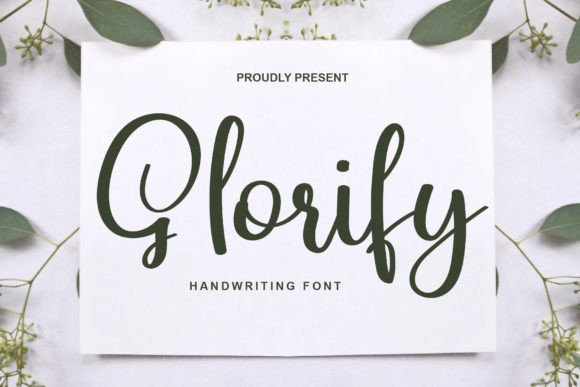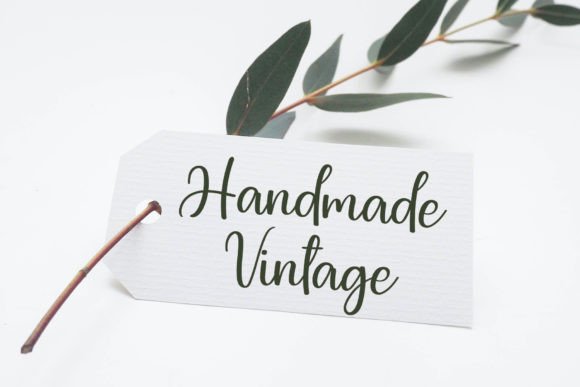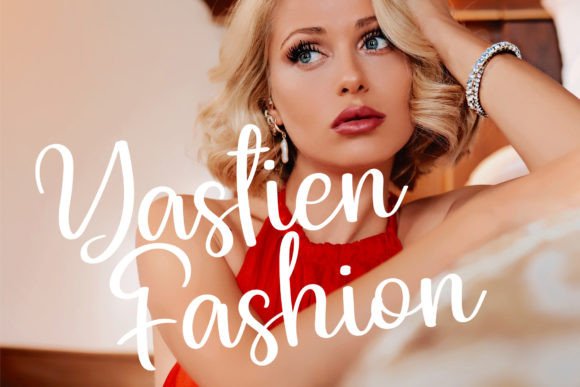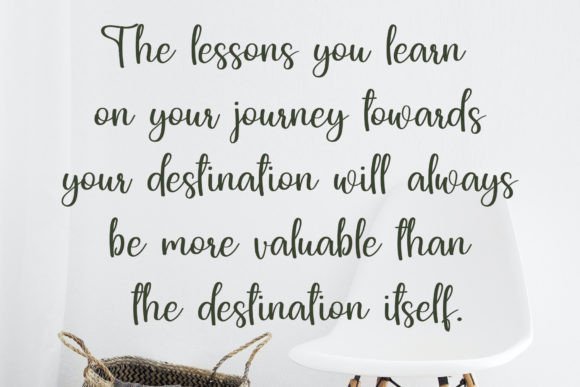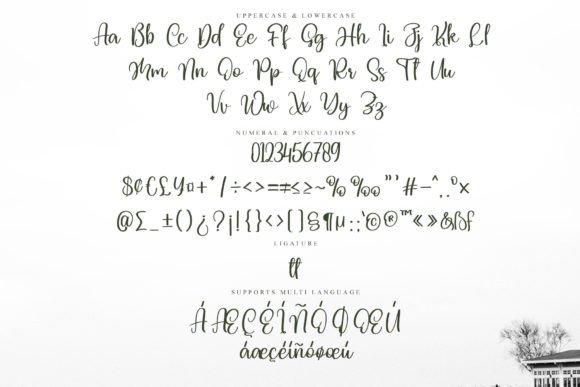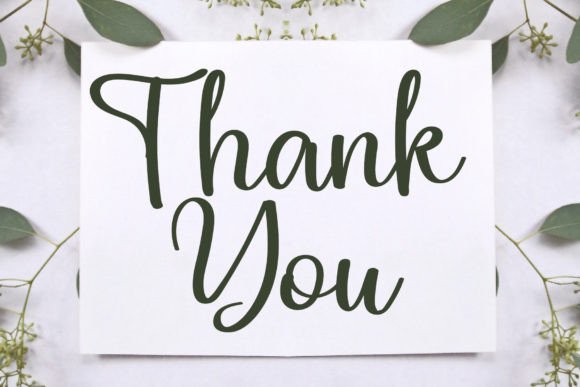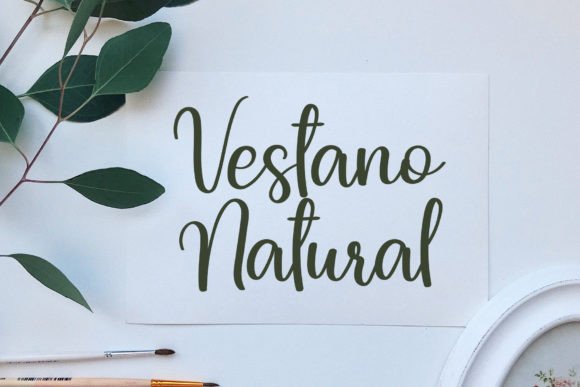
Glorify Font
About Glorify Font
**Glorify: A Playful and Stylish Script Font with a Youthful Spirit**
Glorify is a font that exudes playfulness and style with a youthful spirit. It is well-suited for a wide spectrum of design projects, making it a versatile choice for both professional-looking designs like branding, labels, websites, and business cards, as well as more casual projects such as packaging, posters, flyers, quotes, social media posts, and invitations.
The charm of Glorify lies in its playful and stylish script characters. Each letter is crafted to radiate a sense of energy and authenticity. Whether you’re working on a professional branding project that needs a touch of style or creating a fun and casual social media post, Glorify adds a youthful and spirited flair to your work.
This font’s versatility ensures it can adapt to various design contexts. It can be used to create eye-catching branding materials that leave a memorable impression, infuse a sense of style into casual designs, or add a playful touch to your creative projects. Its youthful spirit ensures your designs are vibrant and visually appealing.
In summary, Glorify is more than just a font; it’s a source of playfulness and style that enhances your design projects. Its playful and stylish script letters make it the perfect choice for infusing energy and a youthful spirit into your work. With Glorify, your creative projects will shine with a lively and spirited touch. Choose Glorify, and let your designs captivate with its playful and stylish charm.